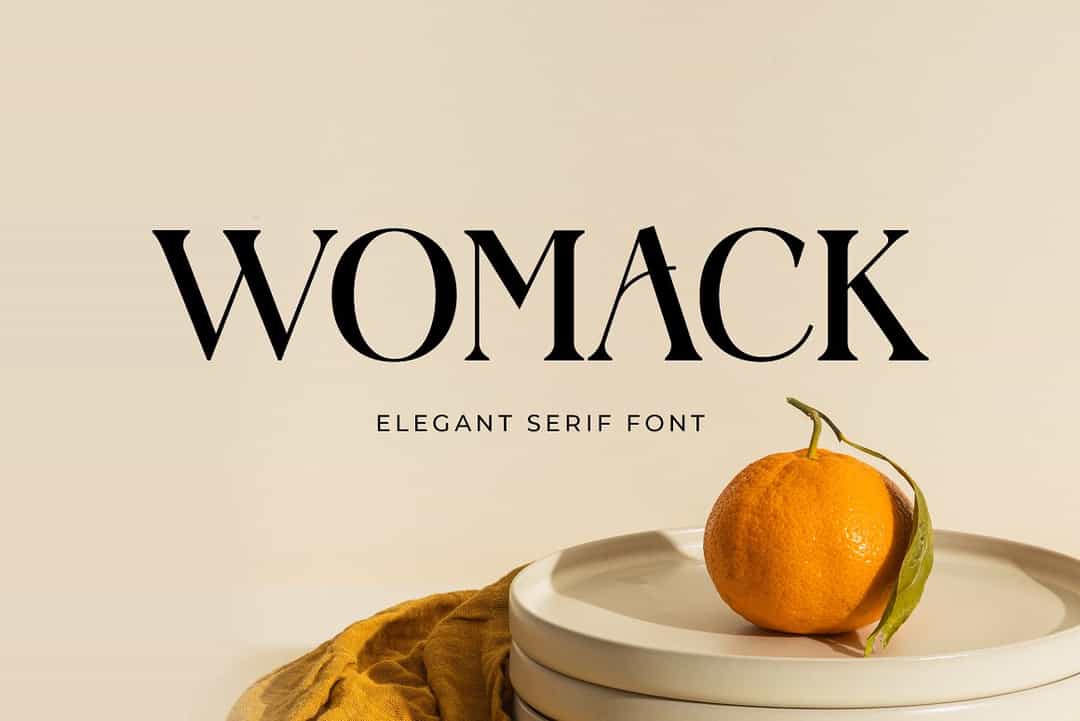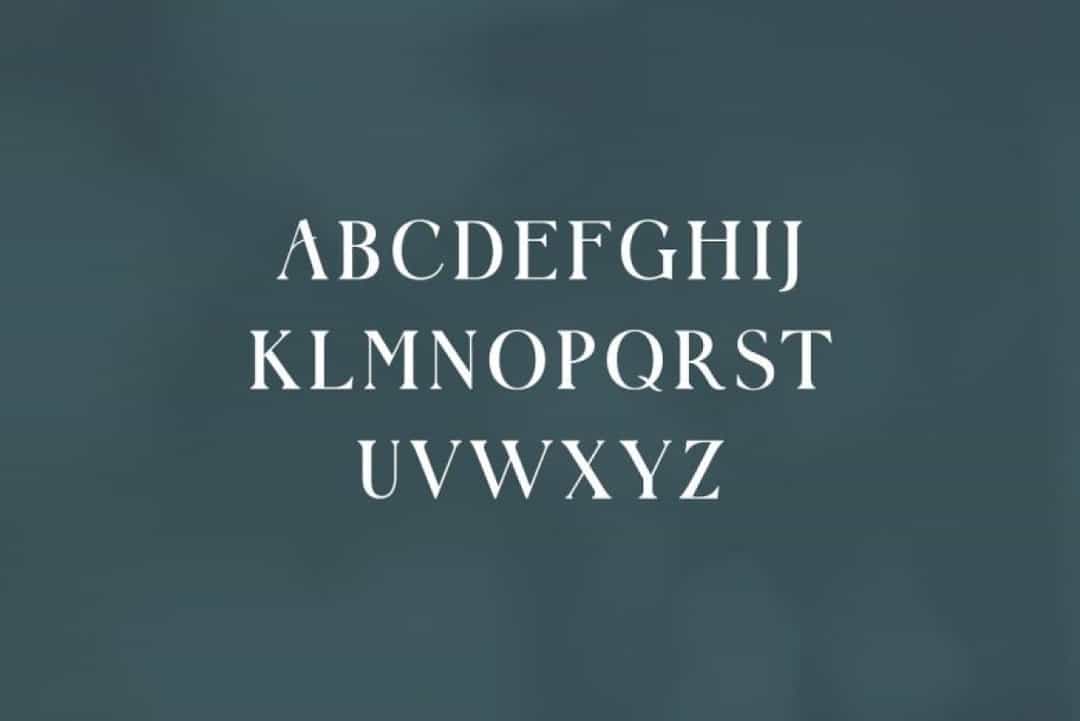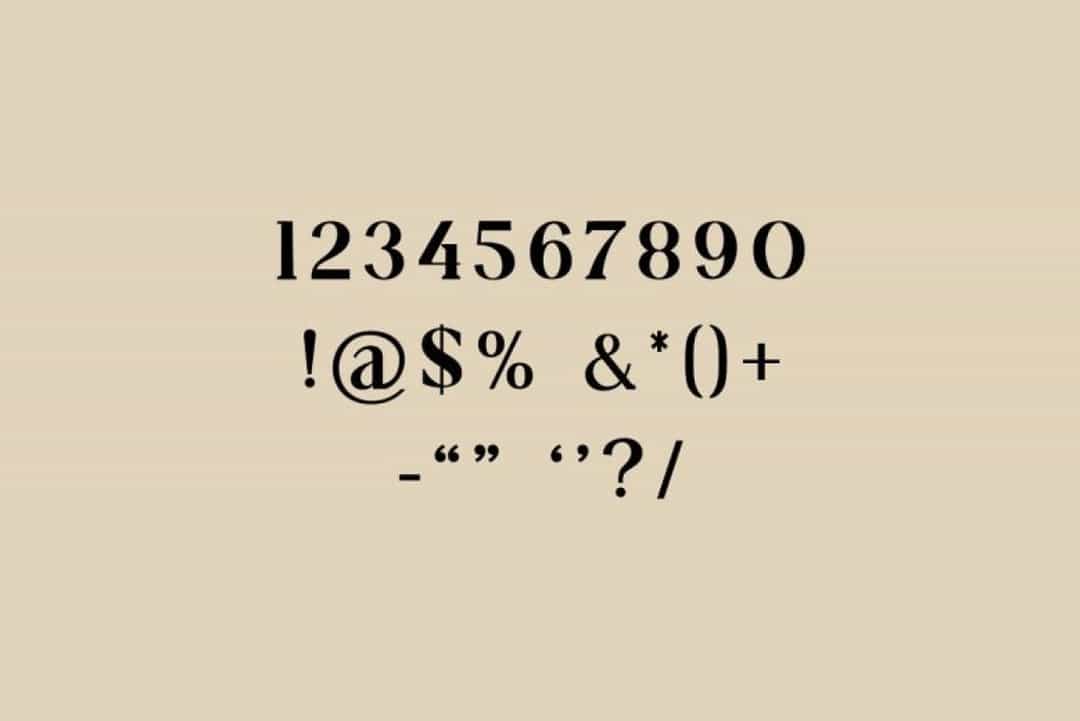
Womack Classic Serif Font is our new product offering and is a modern serif font designed with elegance and class in mind. Perfect for stationary designs, signature logo wedding logos, typography quotes from books or magazines covers and website headers as well as clothing branding packaging designs, it also displays feminine and masculine characteristics perfectly.